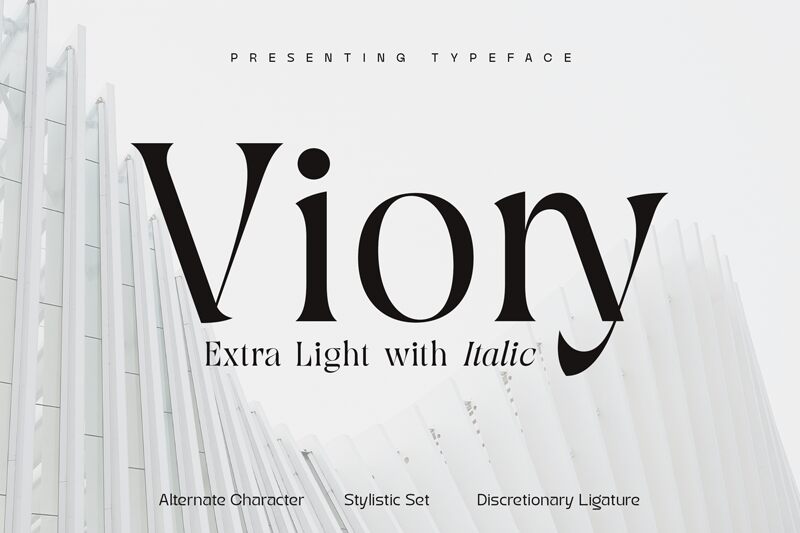
Viory Extra Light, a creation by Sign Studio, is a captivating serif font that combines elegance and readability. With its semi-light weight and semi-condensed width, this versatile typeface is perfect for projects that require a touch of sophistication. Ideal for wedding invitations, high-end fashion magazines, and luxury branding, Viory Extra Light adds a refined flair to any design. Its graceful serifs and clean lines make it legible even at smaller sizes, ensuring optimal readability in both print and digital media. Elevate your next project with Viory Extra Light's timeless charm and distinctive character.
Viory Typeface by Sign Studio
Sign Studio
Sugiyanto